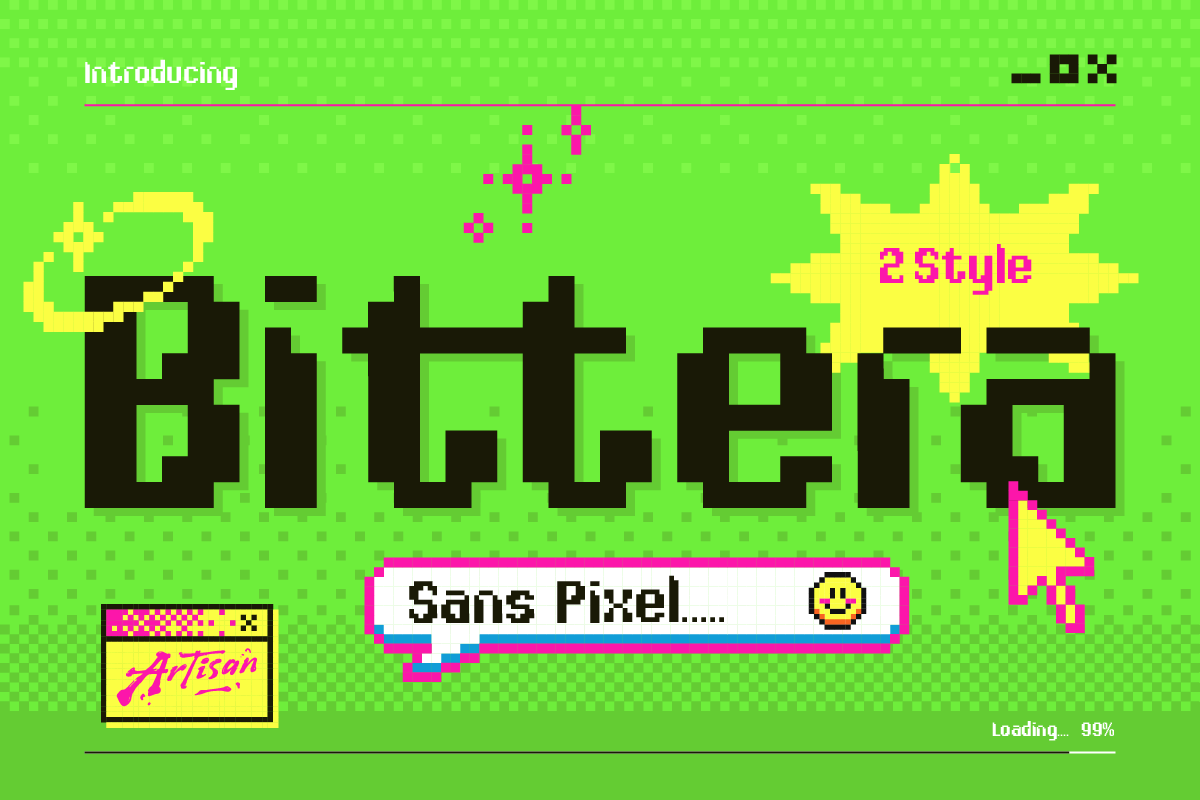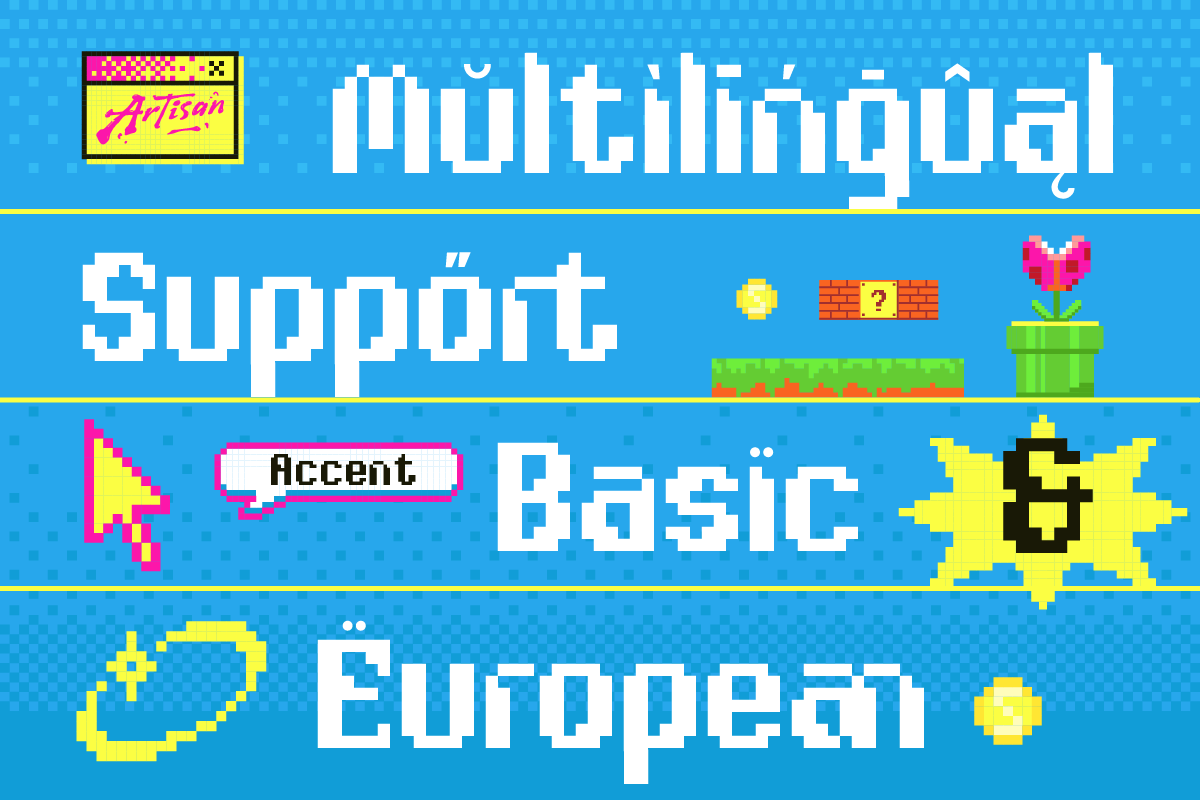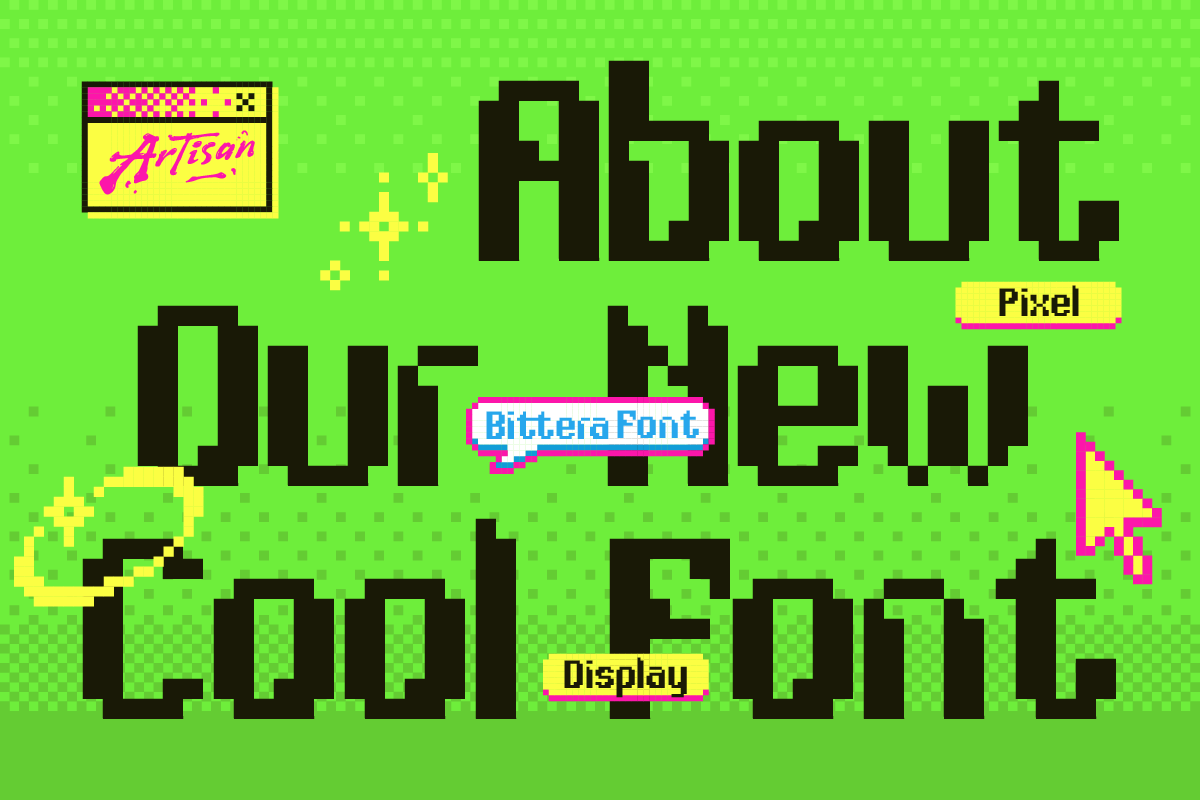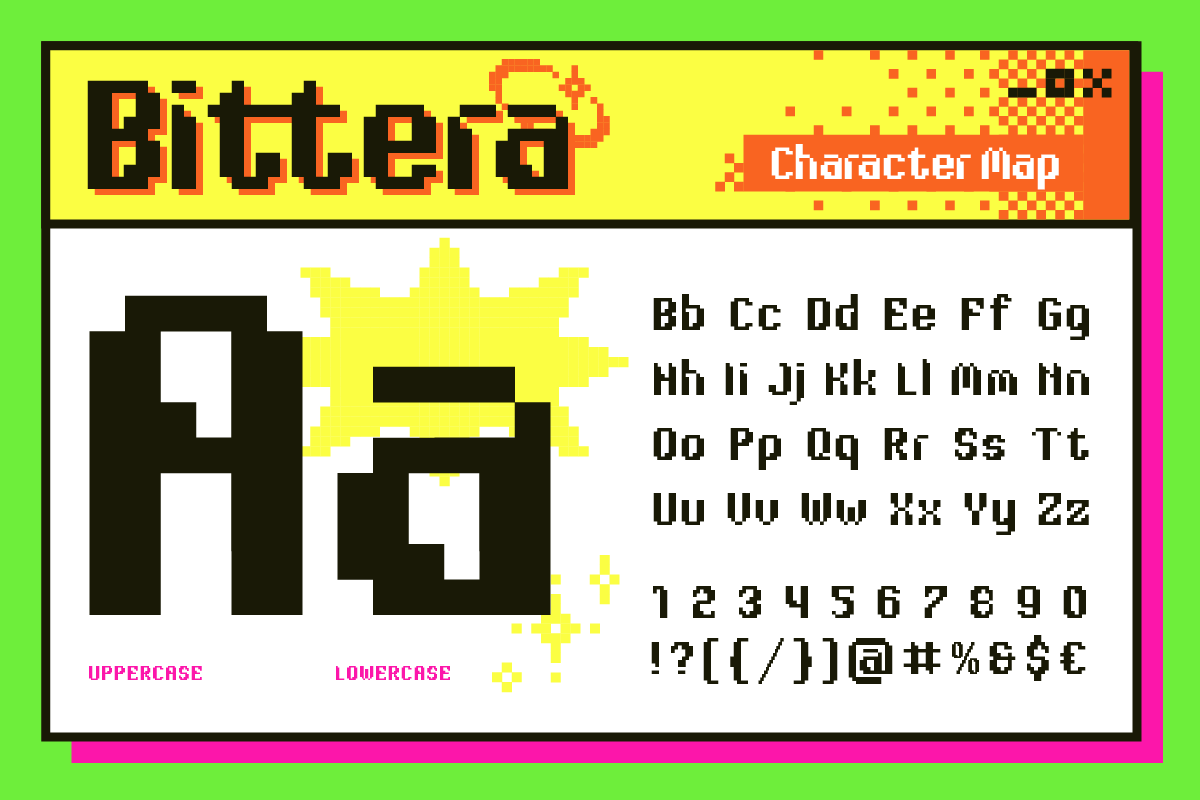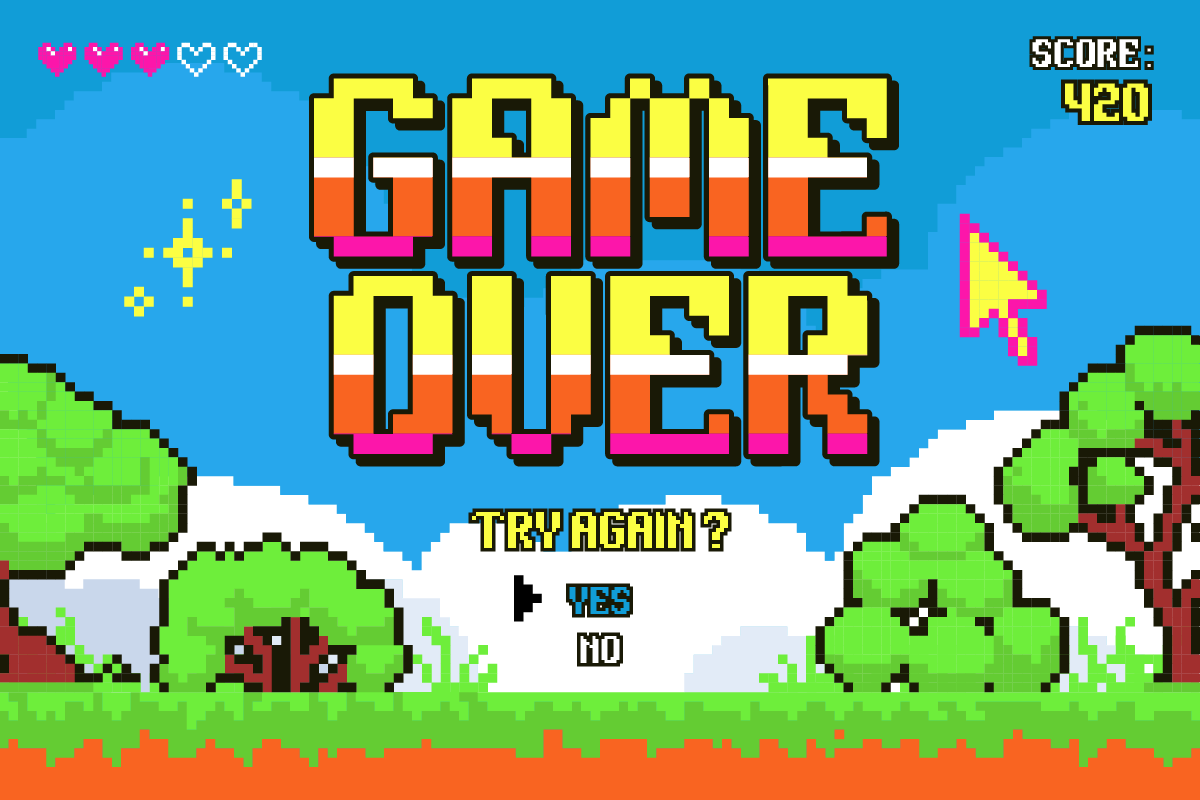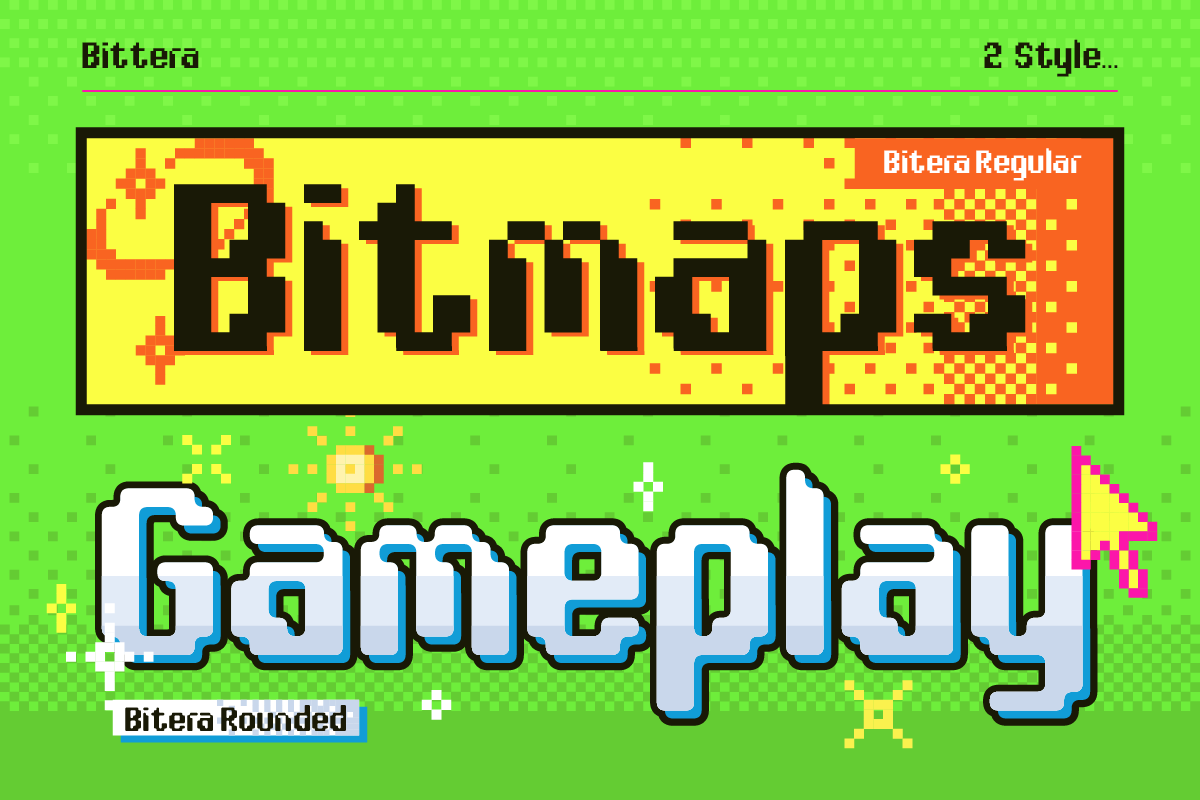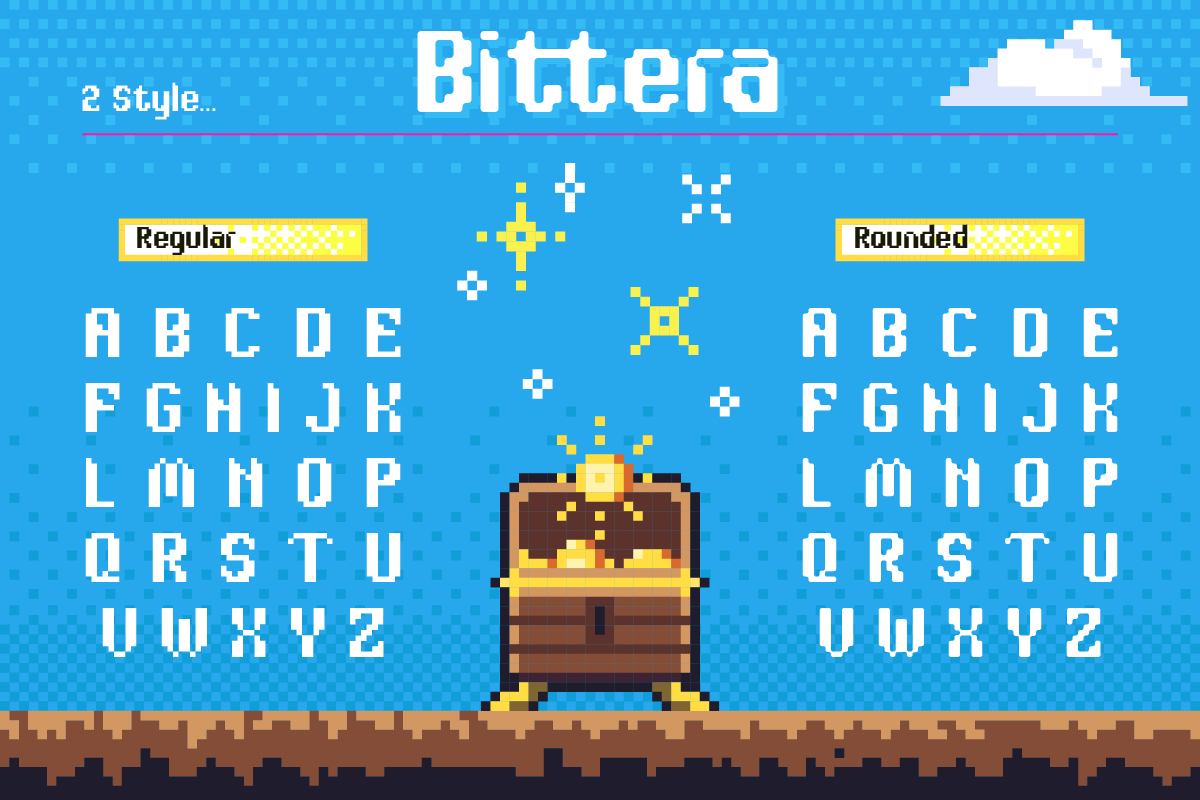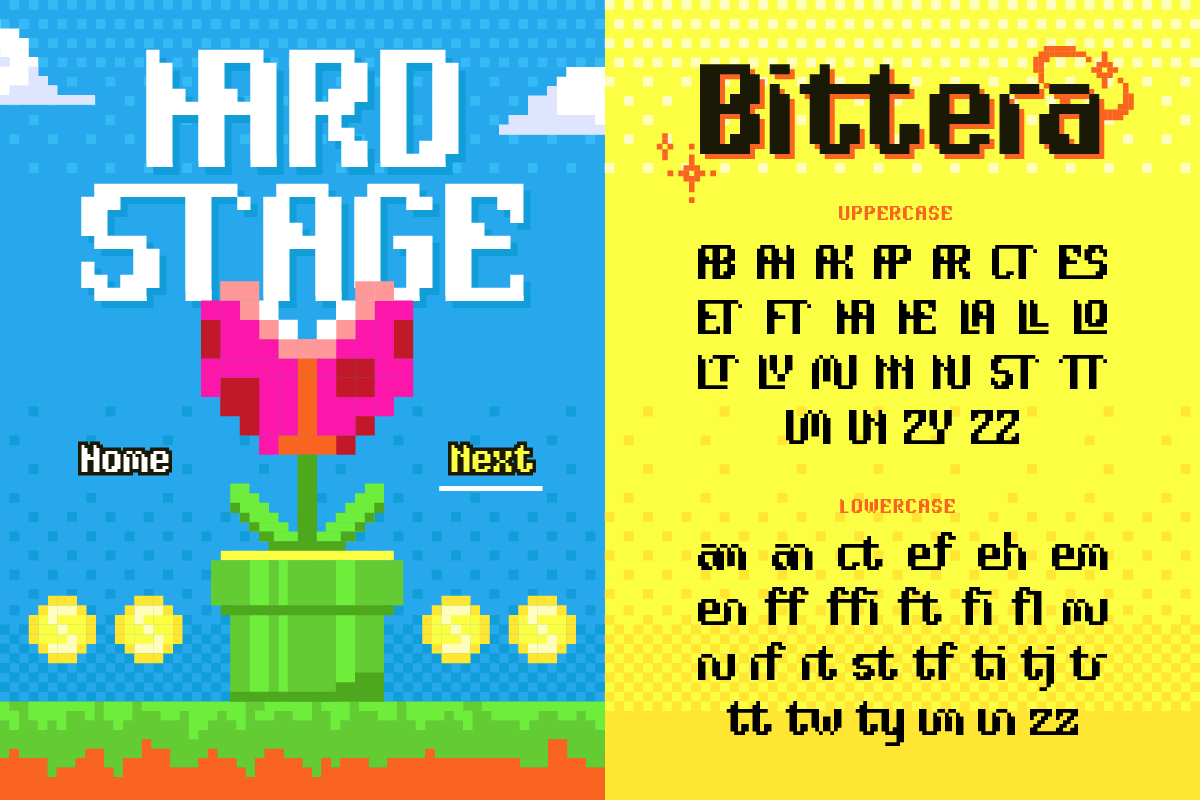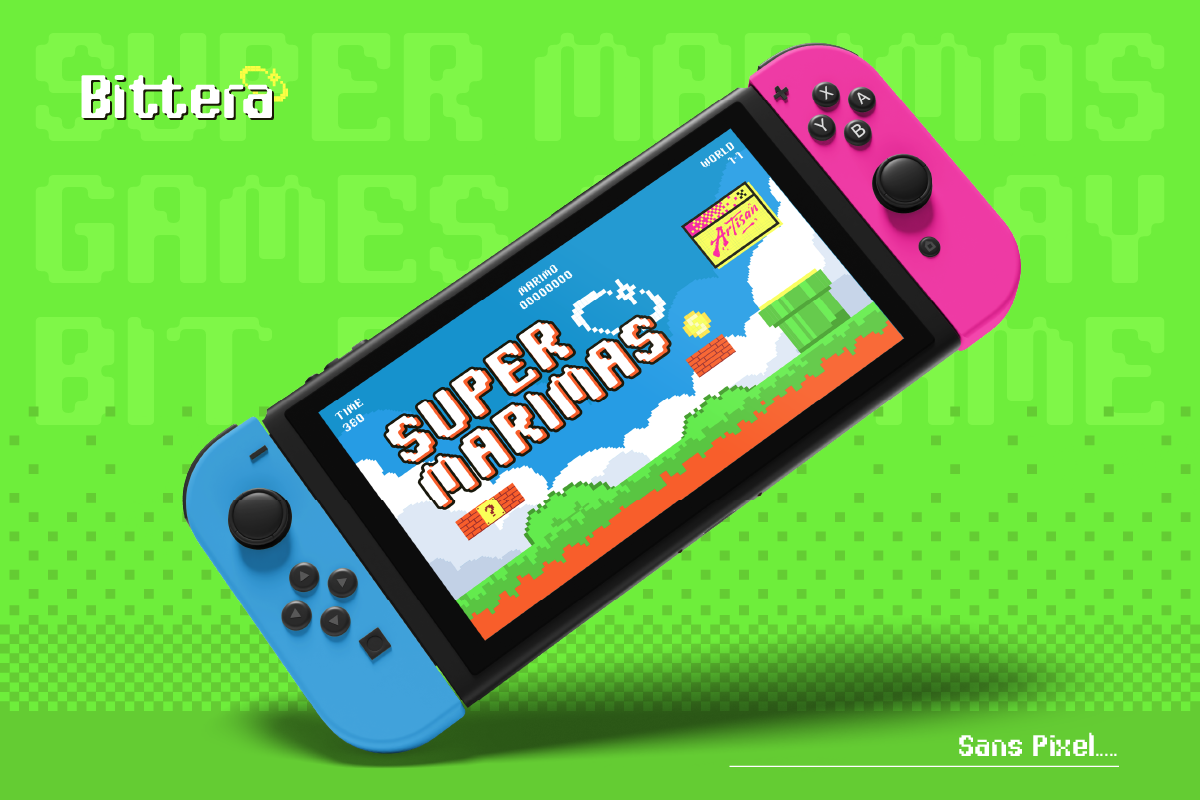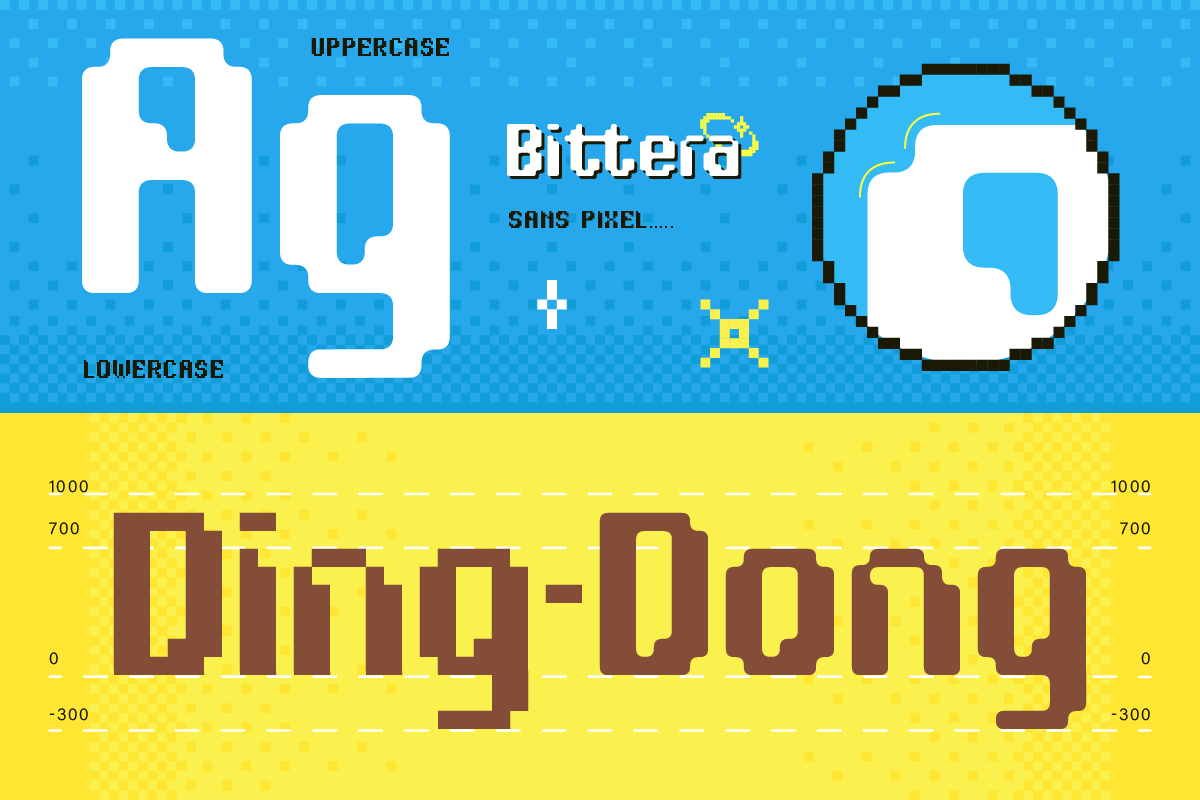
Bittera
REGULAR
ROUNDED
Description
Your new pixel perfect buddy is here! Introduce Bittera, this font is here to bring back that retro 8-bit magic but with a fresh twist. Bittera comes in 2 fun styles: Regular for that clean, classic pixel look, and Rounded for a softener, playful vibe. Perfect for game titles, pixel art, YouTube thumbnails or anything that needs that nostalgic arcade feel.
Press start and let Bittera power up your design!
• A – Z set (Uppercase & Lowercase)
• Number
• Punctuation
• Multilingual